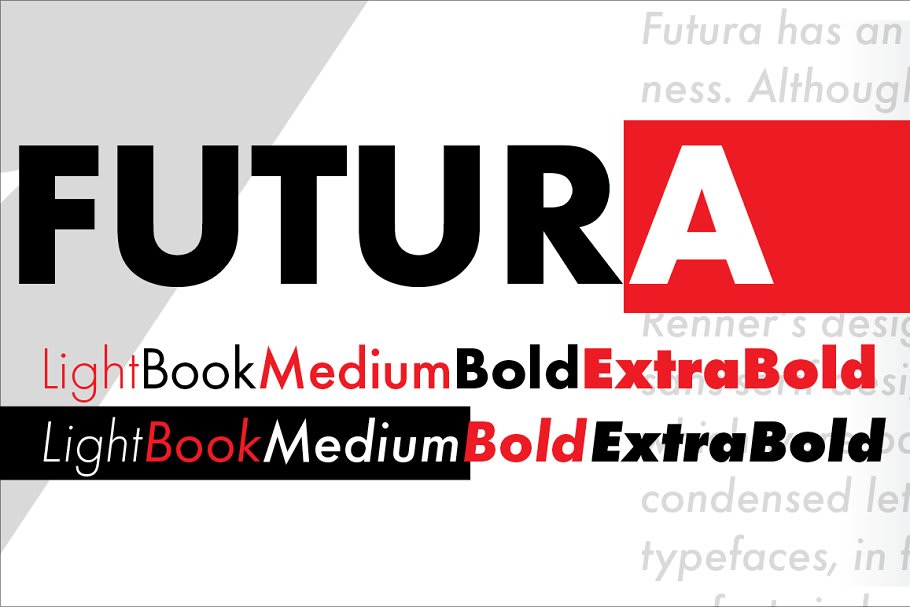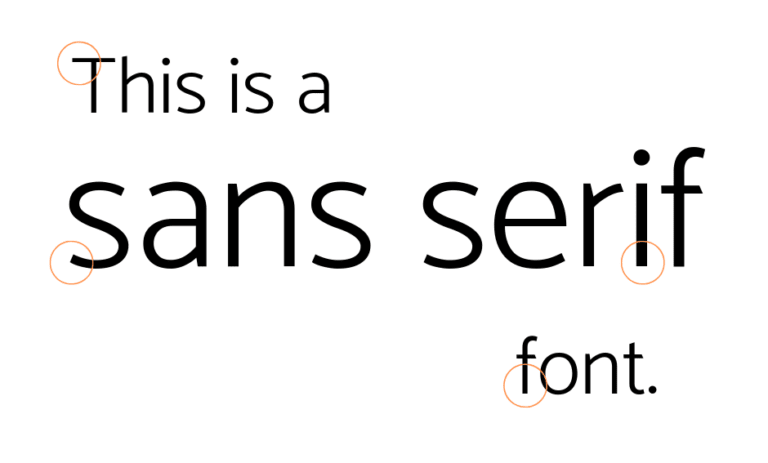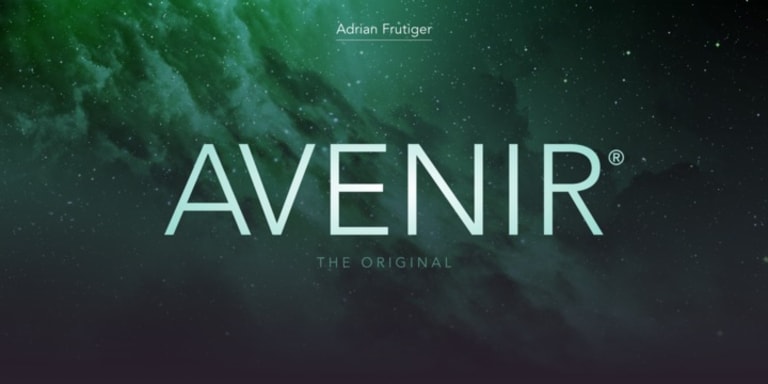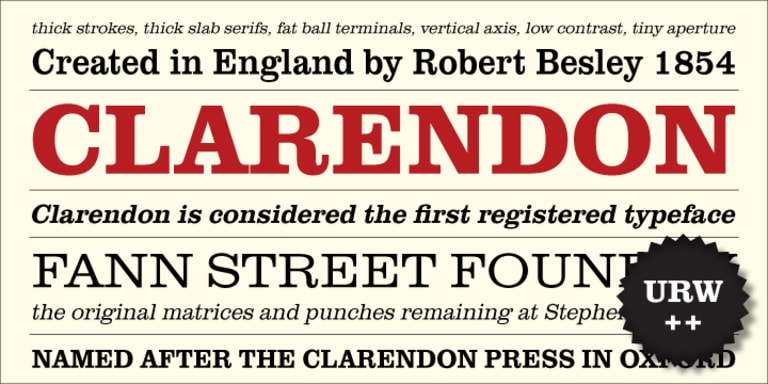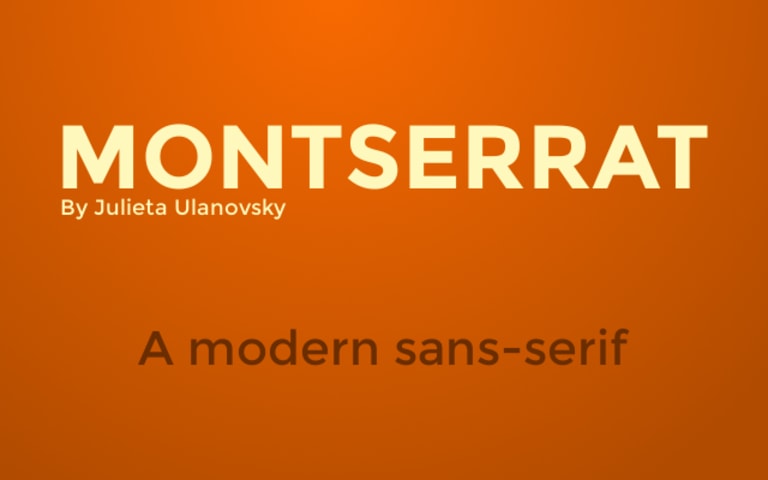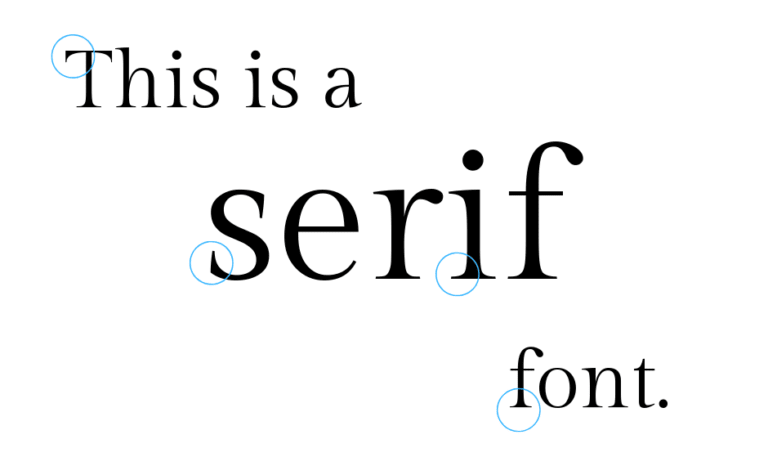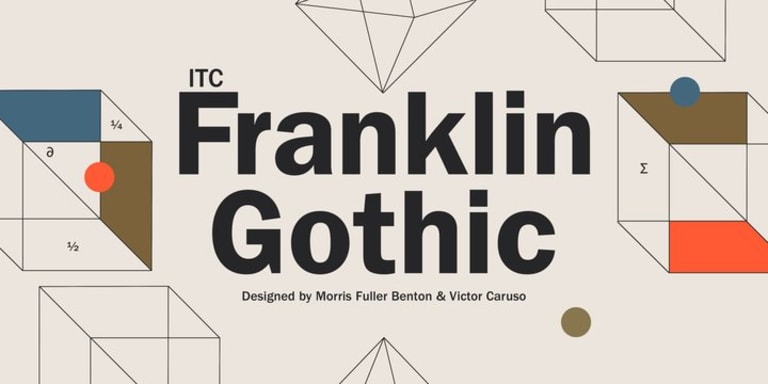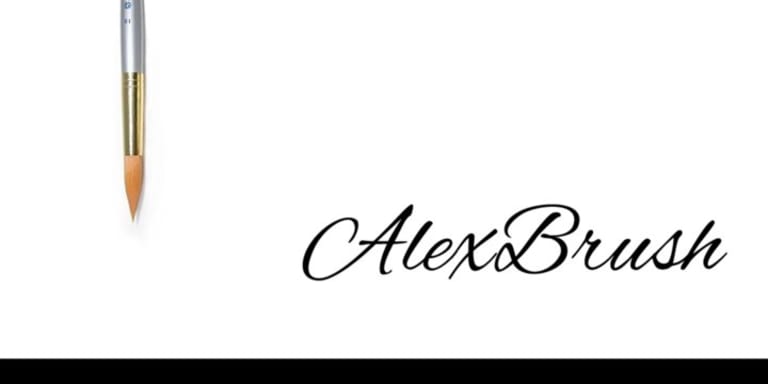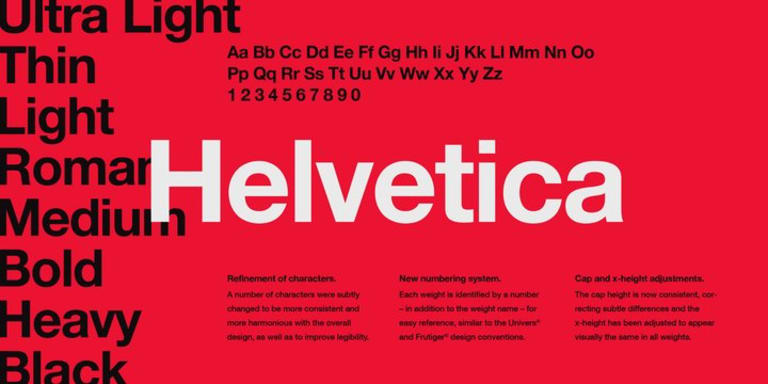
10 Fonts For Fantastic Signs
Discover the top fonts that will make your signs stand out with readability and style.
Choosing the right font is a critical aspect of designing an effective sign. While selecting the best font for signs will depend heavily on personal preferences and branding, there are a number of go-to typefaces and styles that you should consider.
Your chosen font must be readable from a distance while also fitting in with your branding strategy. Other factors, including color and size, are important considerations when choosing the best fonts for banners or signs.
Below, we ll list some of the best fonts for signs in any situation. Whether you're looking for the right typeface for your restaurant sign, yard sign, or warning sign, or simply looking to knock it out of the park with a fantastic outdoor sign font, we ve got you covered!
Sans Serif Font Image by Post PrePress Group
Sans Serif Fonts
Design via Post PrePress Group Sans Serif Font by Post PrePress
A Sans Serif font is a typeface that does not have extended strokes, or serifs, at the end of each character. It is minimalist, modern, and makes for easy reading.
Sans Serif typefaces are the most commonly used font for signage. Their uncluttered nature makes them easier to read at a distance than their Serif counterparts. As a result, road and traffic signs utilize Sans Serif fonts almost exclusively. Here are just a few of the most popular Sans Serif fonts to consider for your sign.
Futura Medium by URW
1. Futura
Design via Creative Market Futura by URW
Known for its efficiency and straight-forwardness, Futura is a no-nonsense font that would work great for a sleek, modern sign. Think IKEA, which used a custom Futura-based font up until 2010, or Volkswagen ("Das Auto"), whose signature brand font was also a custom-modified Futura spin-off until 2015.
ITC Franklin Gothic
2. Franklin Gothic
Design via MyFonts.com ITC Franklin Gothic
One of the best bold fonts for banners, Franklin Gothic has a classic and powerful feel to it. This eye-catching font has been a mainstay in advertisements and newspaper headlines throughout the years. It s also one of the best fonts for warning signs since it tends to command your attention.
Helvetica by Linotype
3. Helvetica
Design via MyFonts.com Helvetica by Linotype
Some designers accuse this font of being bland - maybe even over-used. However, it is one of the most popular fonts, and for good reason. Helvetica simply works. It is neutral enough for you to utilize in nearly any scenario and is still the first-choice font for many. Think of Helvetica as the little black dress of typefaces - a classic neutral that goes well with everything.
Avenir by Linotype
4. Avenir
Design via MyFonts.com Avenir by Linotype
Avenir means "future" in French. It is a clean and elegant font evoking a sense of warmth. Its simplicity makes for one of the best font styles for banners and signs in the 21st century. Popular usage examples of this modern font include the corporate typography for the city of Amsterdam, Snapchat, parts of Apple s iOS, and more.
Montserrat by Julieta Ulanovsky
5. Montserrat
Design via BeFonts.com Montserrat by Julieta Ulanovsky
Montserrat is a versatile font that looks great in both its bold form and its lighter, natural iteration. When bolded, the thick structure can give off a friendly vibe for a modern company such as a digital agency or coffee shop. In its lighter form, it transforms into a chic and trendy typeface - perfect for a boutique clothing store or a young, entrepreneurial business.
Serif Fonts
Design via Post PrePress Group Serif Font by Post PrePress
In contrast to Sans Serif fonts, Serif fonts are characterized by the extended marks at the end of the letters. They are commonly found in large bodies of text, such as newspapers, articles, and legal documents. The serifs help the eye flow from one letter to the next, making those materials easier to read.
Since Serif fonts can appear cluttered from a distance, they are a less common choice for briefly-worded signage. However, if your sign contains a large amount of copy, a Serif font may be just what you need. Here are a few Serif font options to consider.
Garamond by Adobe
6. Garamond
Design via Fonts.com Garamond by Adobe
Garamond is a readable Serif font with origins going back to the 16th century. It is commonly used in books or in a large body of text. As a result, this font would work well for smaller text within a poster, yard sign, or banner.